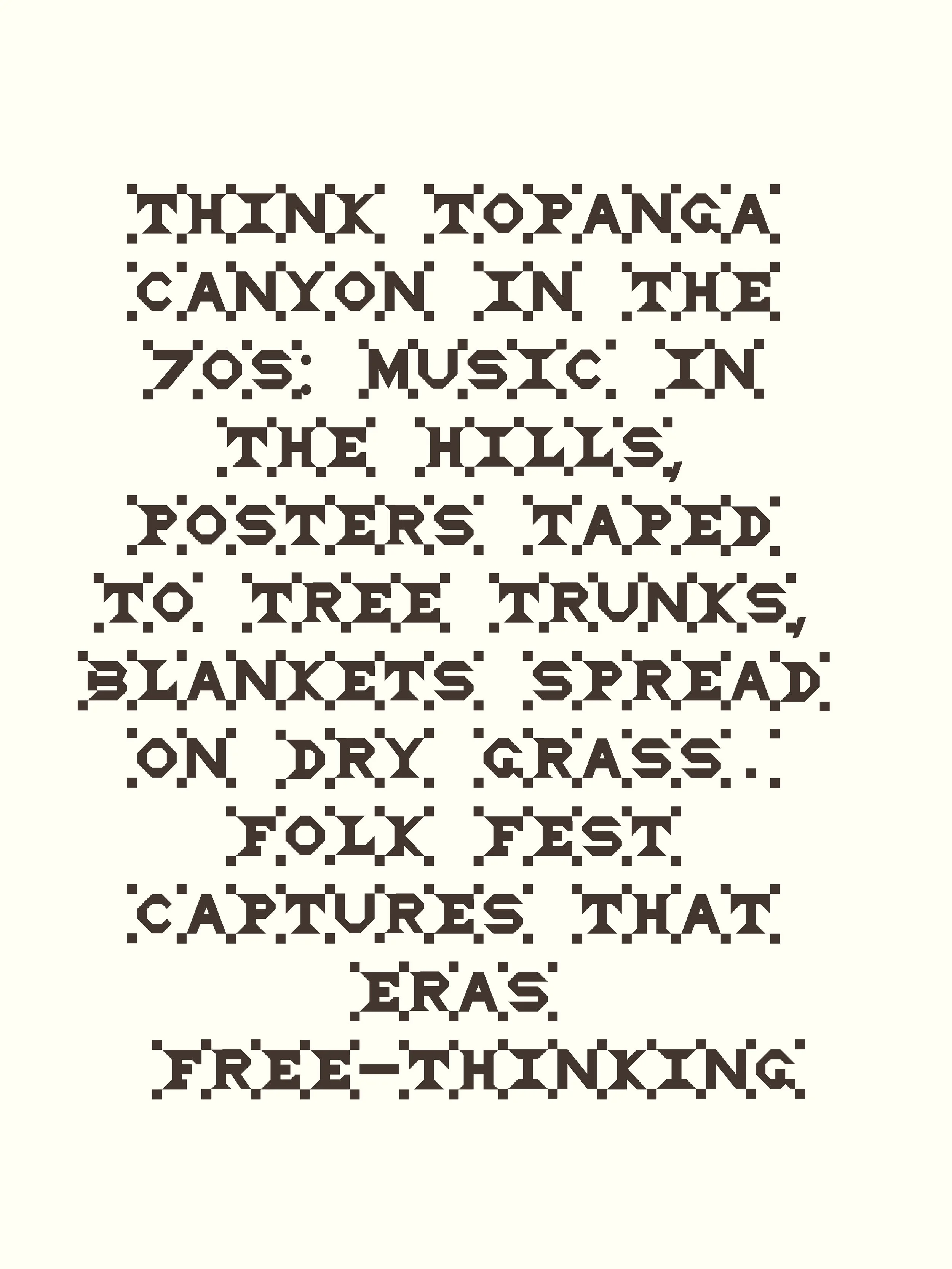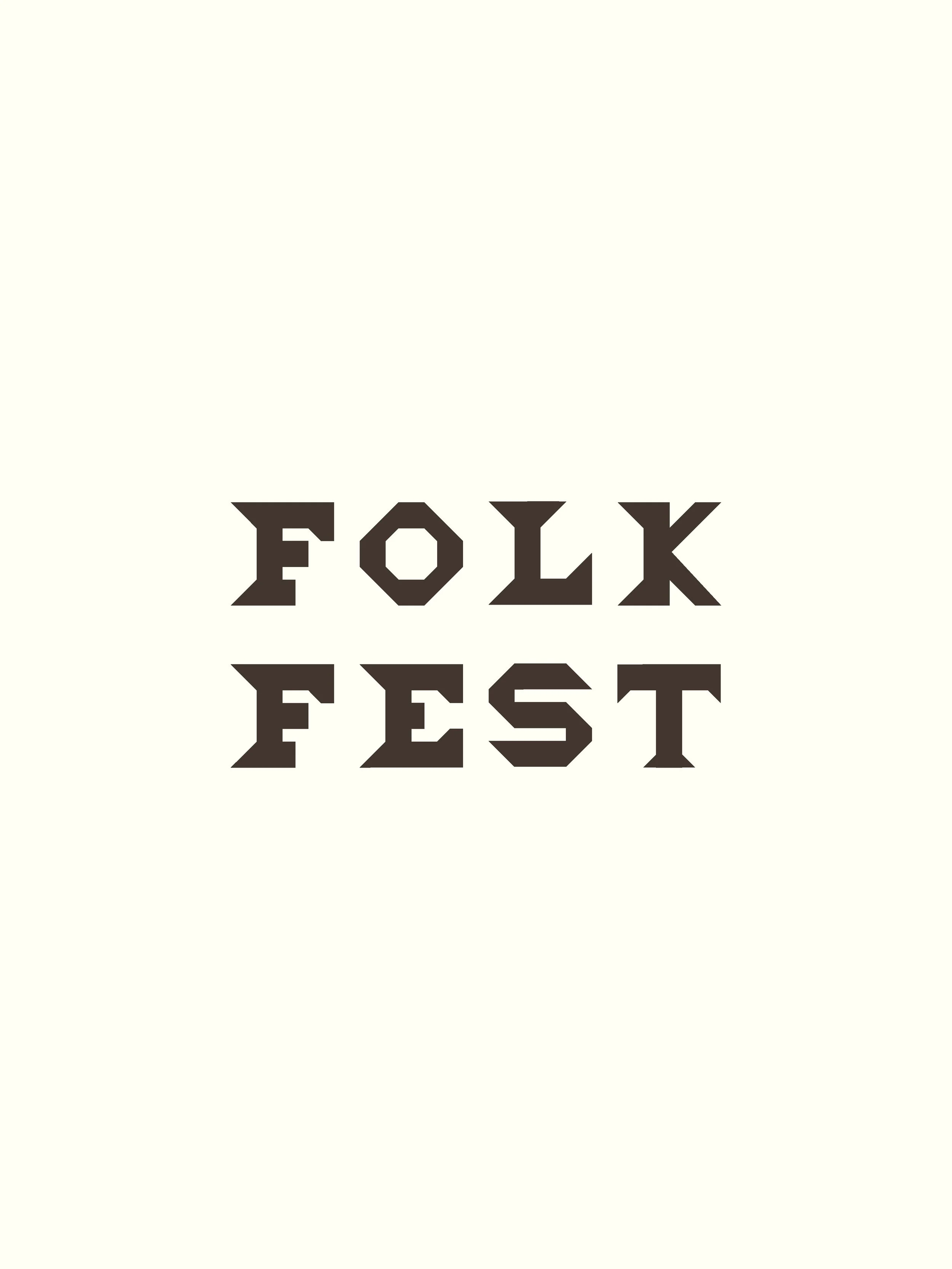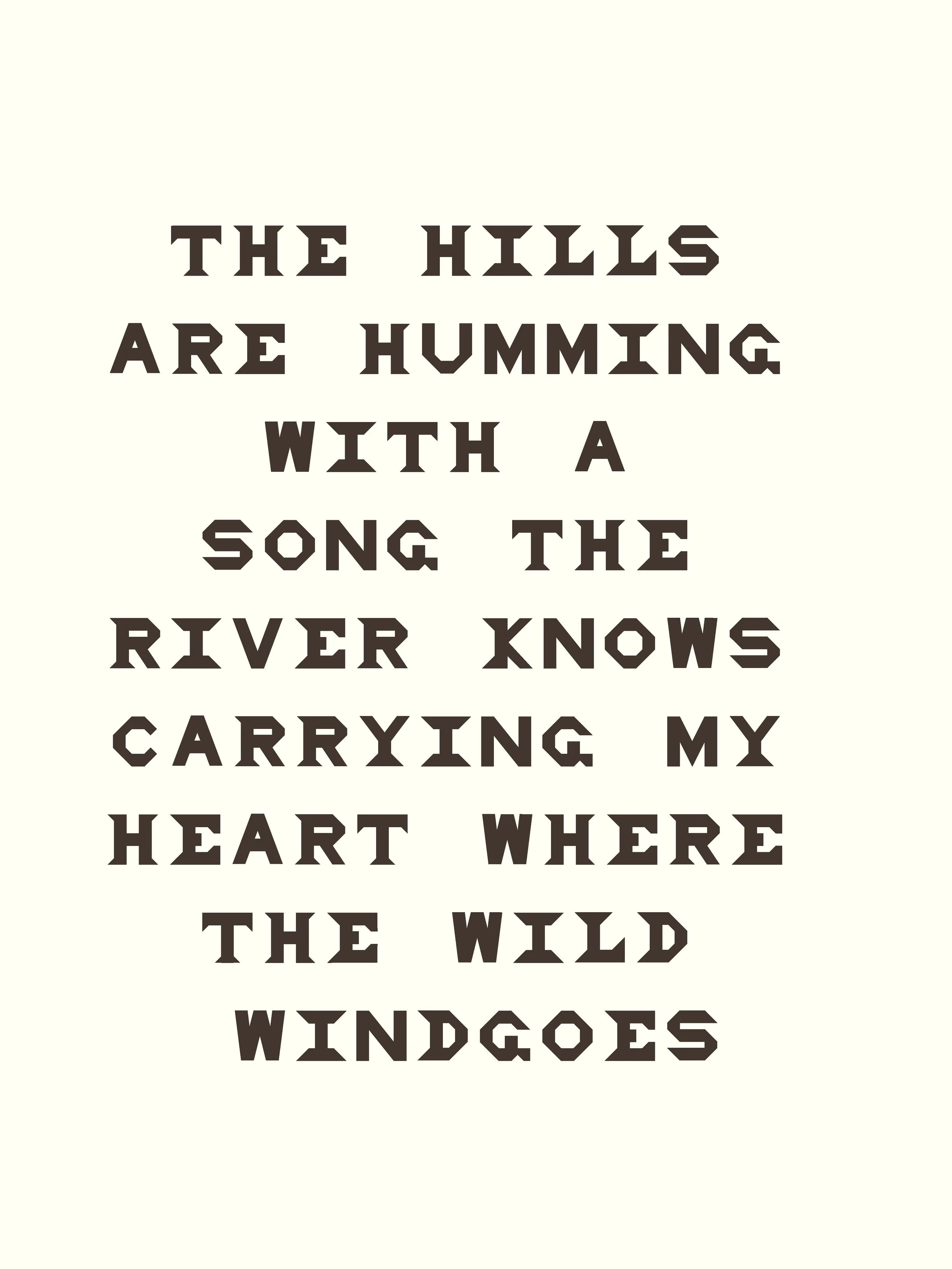
A QUILTED FOLK FONT
FOLK FEST is a hand-crafted display font inspired by the visual language of quilt-making and the creative energy of the Arts & Crafts movement. It draws from a history of stitched messages, patchwork symbols, freedom quilts, protest banners, and festival posters — reminding us of the power in things made by hand.
Think Topanga Canyon in the 70s: music drifting through the hills, posters taped to tree trunks, quilts spread across dry grass. FOLK FEST channels that era’s free-spirited, back-to-basics ethos — a celebration of process, imperfection, and craft.
This all-caps display font is slightly irregular and full of character. Each letter and number has two versions — one with stitched quilt markings and one clean. The lowercase a–z set becomes a library of quilt-inspired icons: doves, hearts, stars, and patchwork motifs you can use as decorative borders, graphic elements, or stand-alone symbols.
Perfect for:
Folk festivals, music posters, and album artwork
Community projects and protest graphics
Branding and packaging that need a tactile, human touch
FOLK FEST is both a tool and a tribute — bringing the beauty of handmade craft into the digital age. Some letters will be slightly off grid in honour of imperfection.